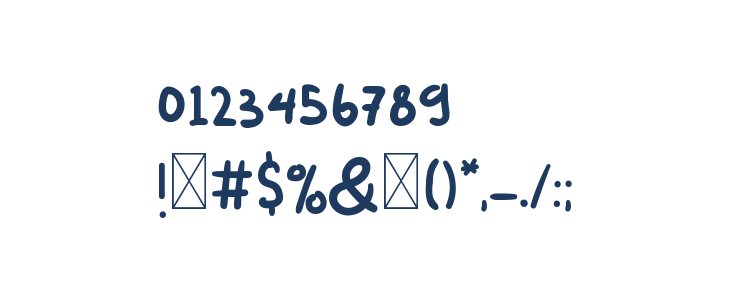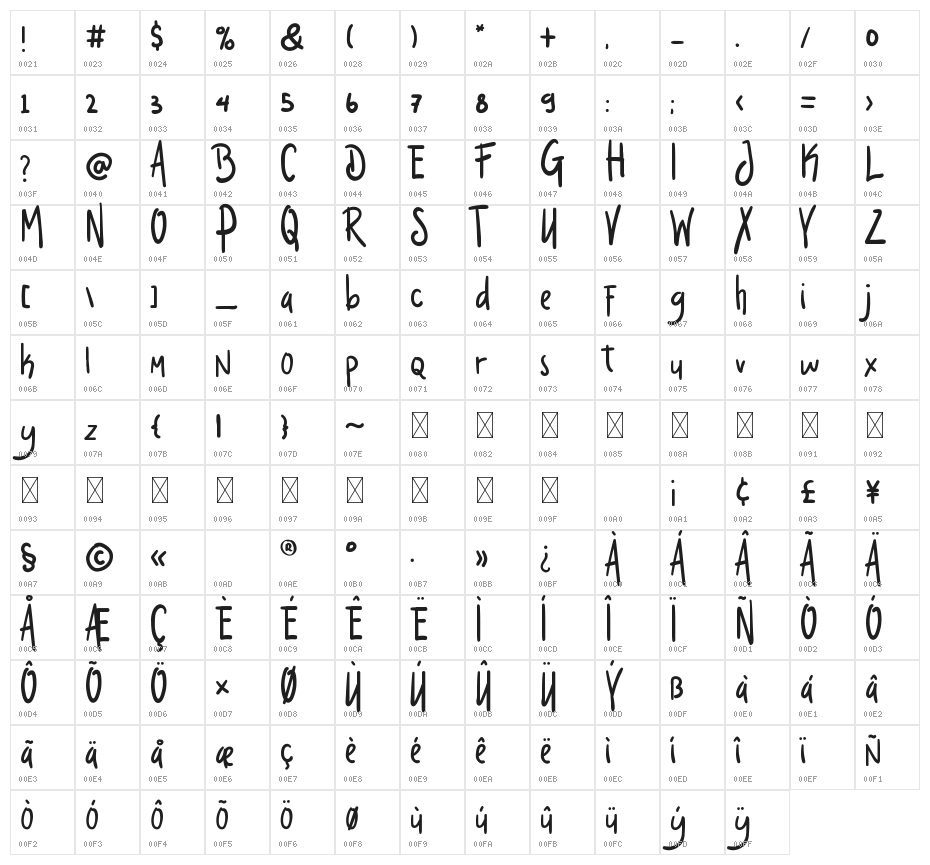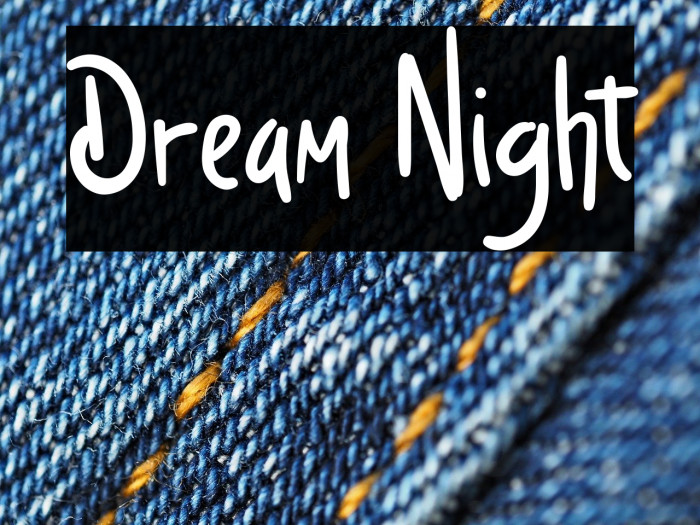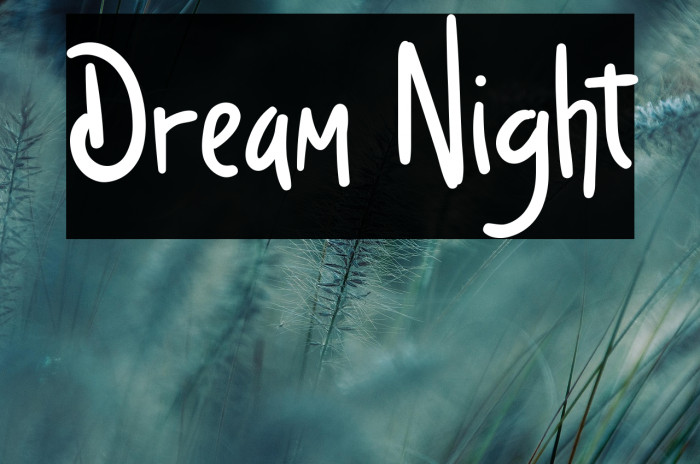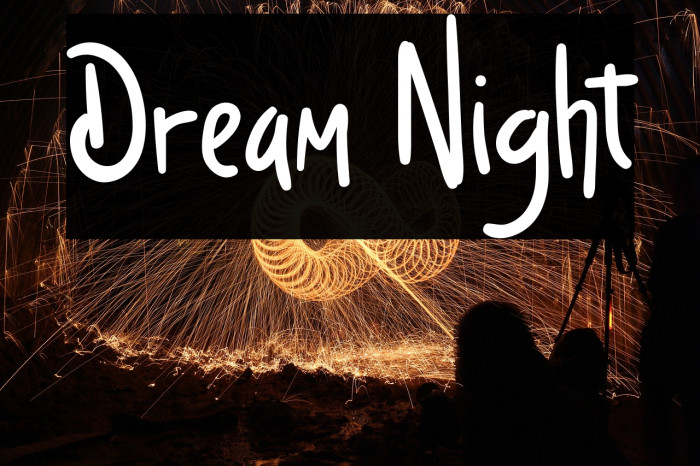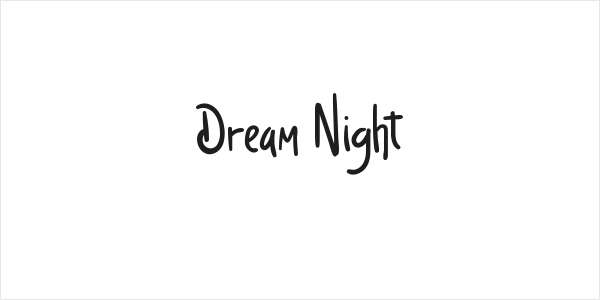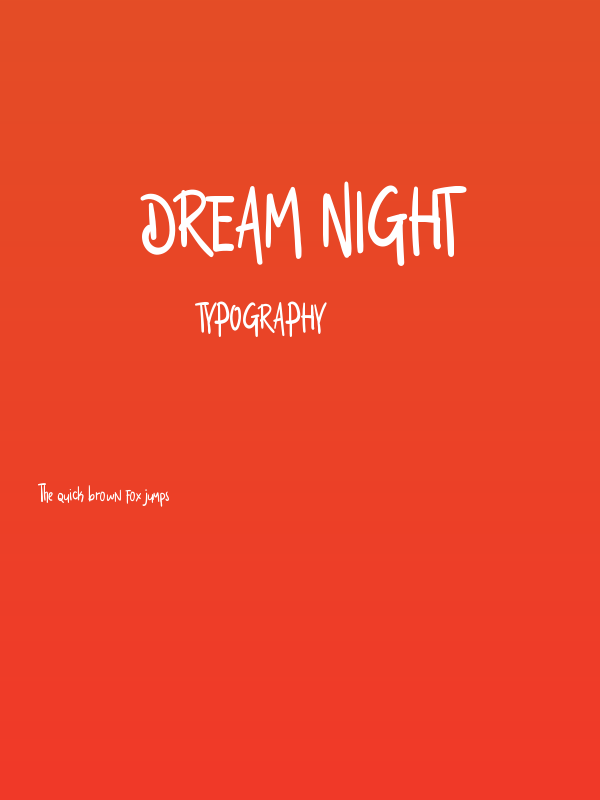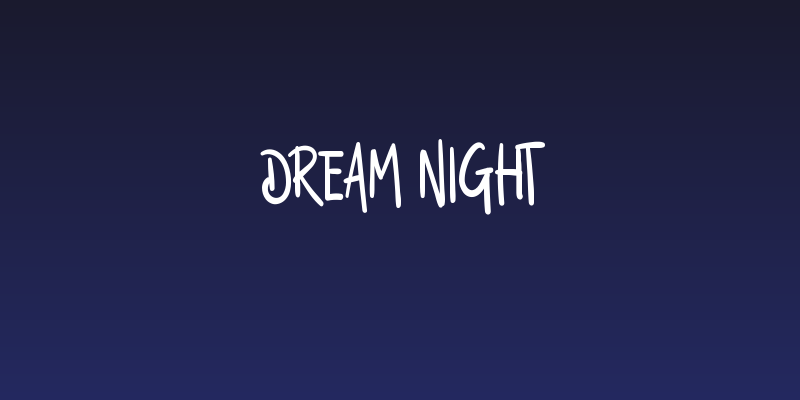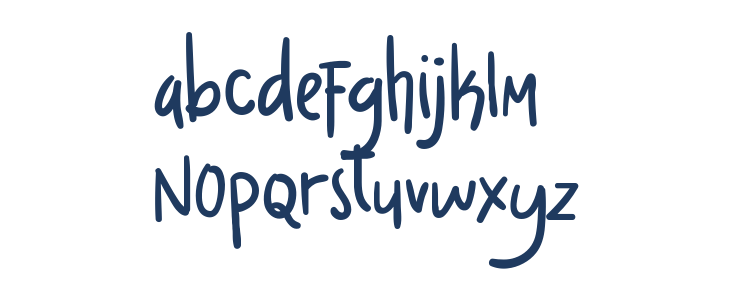
Dream Night Font
Dream Night Description
This font features a playful and casual handwritten style, characterized by its irregular and organic letterforms. The uppercase and lowercase letters maintain a consistent flow, with slightly exaggerated curves and varying stroke widths that add to its informal charm. The numbers and special characters are equally whimsical, making them suitable for creative projects. The overall appearance is friendly and approachable, ideal for conveying a sense of fun and spontaneity.
| Proposed Projects | Ideal for greeting cards, children's books, playful branding, and social media graphics. |